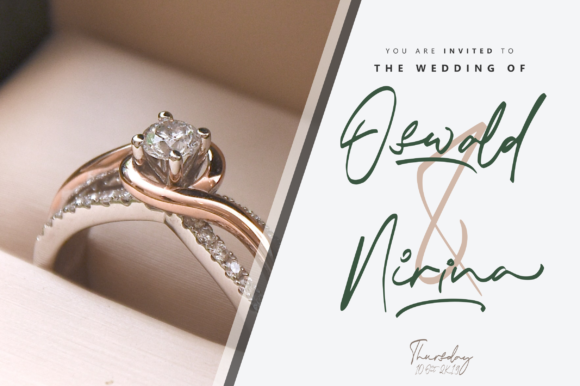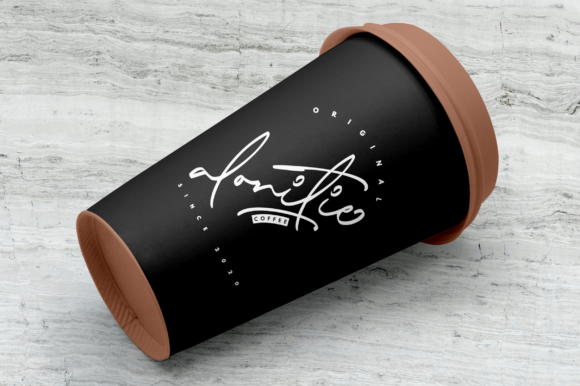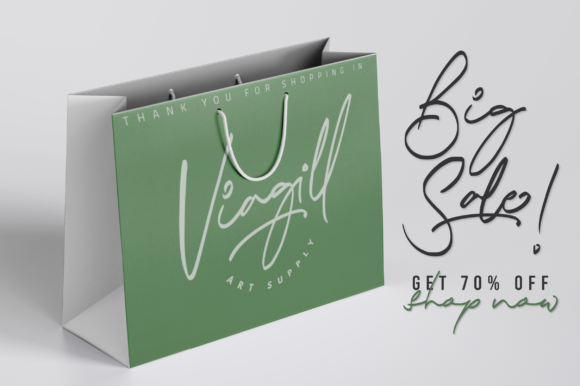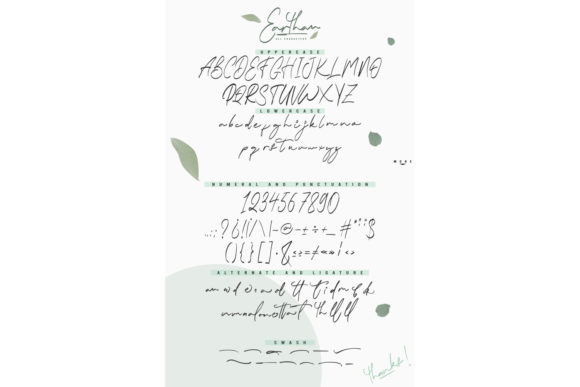
Discover the Elegance of Earthan Font: Elevate Your Designs to New Heights
Are you on the hunt for a font that exudes sophistication, elegance, and a touch of modern flair? Look no further than Earthan, an exquisite handwritten font that is sure to capture your heart. Designed with meticulous attention to detail, Earthan seamlessly blends classic calligraphic influences with a contemporary twist, making it the perfect addition to your design arsenal.
The Essence of Earthan Font
Earthan is more than just a font; it’s an experience. Its masterful design ensures that it stands out in any project, whether you’re working on a branding campaign, a website, or crafting beautiful digital or print materials. This font’s unique charm lies in its ability to convey a sense of luxury and freshness simultaneously, making it incredibly versatile for a wide range of applications.
Key Features of Earthan Font
- Classy Calligraphic Influences: Earthan’s roots in traditional calligraphy are evident, providing it with an air of sophistication and elegance.
- Contemporary and Fresh: Despite its classic undertones, Earthan feels modern and current, ensuring your designs don’t feel outdated.
- Handwritten with Love: The font’s handwritten nature adds a personal touch to any project, making it more relatable and engaging.
- Versatile: Suitable for a variety of projects, from luxury brands to personal crafts, Earthan adapts effortlessly to different contexts.
Why Choose Earthan Font?
In a world where design trends are constantly evolving, having a font that can keep up is invaluable. Earthan’s unique blend of classic and modern elements means it won’t look out of place in any design, now or in the future. Its ability to evoke a sense of high-end quality makes it an excellent choice for brands looking to elevate their image.
Applications of Earthan Font
The possibilities with Earthan are endless. Here are a few ideas to get you started:
- Branding and Logos: Create a lasting impression with a logo that exudes elegance and sophistication.
- Website Design: Enhance your website’s aesthetic appeal and make it stand out from the competition.
- Digital and Print Materials: From brochures and business cards to digital banners and social media graphics, Earthan can elevate any material.
- Crafting and DIY Projects: Add a professional touch to your handmade crafts, journals, and art pieces.
How to Make the Most of Earthan Font
To truly fall in love with Earthan and make it a staple in your design toolkit, experiment with its various applications. Play around with different sizes, colors, and pairings with other fonts to discover the many looks you can achieve. Don’t be afraid to let your creativity shine and push the boundaries of what’s possible with Earthan.
Earthan font is more than just a beautiful typeface; it’s a tool that can transform your designs, making them more engaging, sophisticated, and memorable. Whether you’re a professional designer or a crafting enthusiast, Earthan has the potential to become your go-to font for projects that demand a touch of elegance and modernity. So why wait? Dive into the world of Earthan and watch your designs soar to the highest levels!